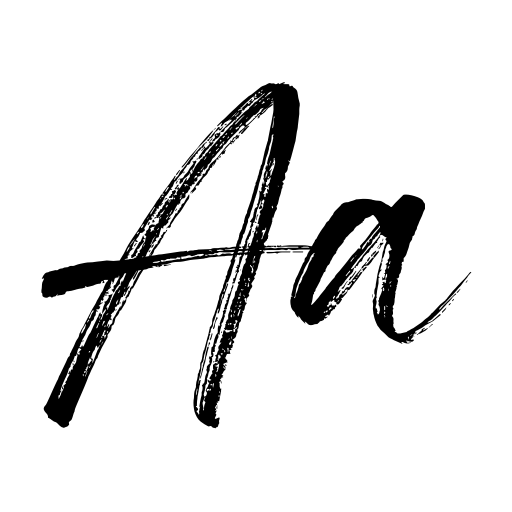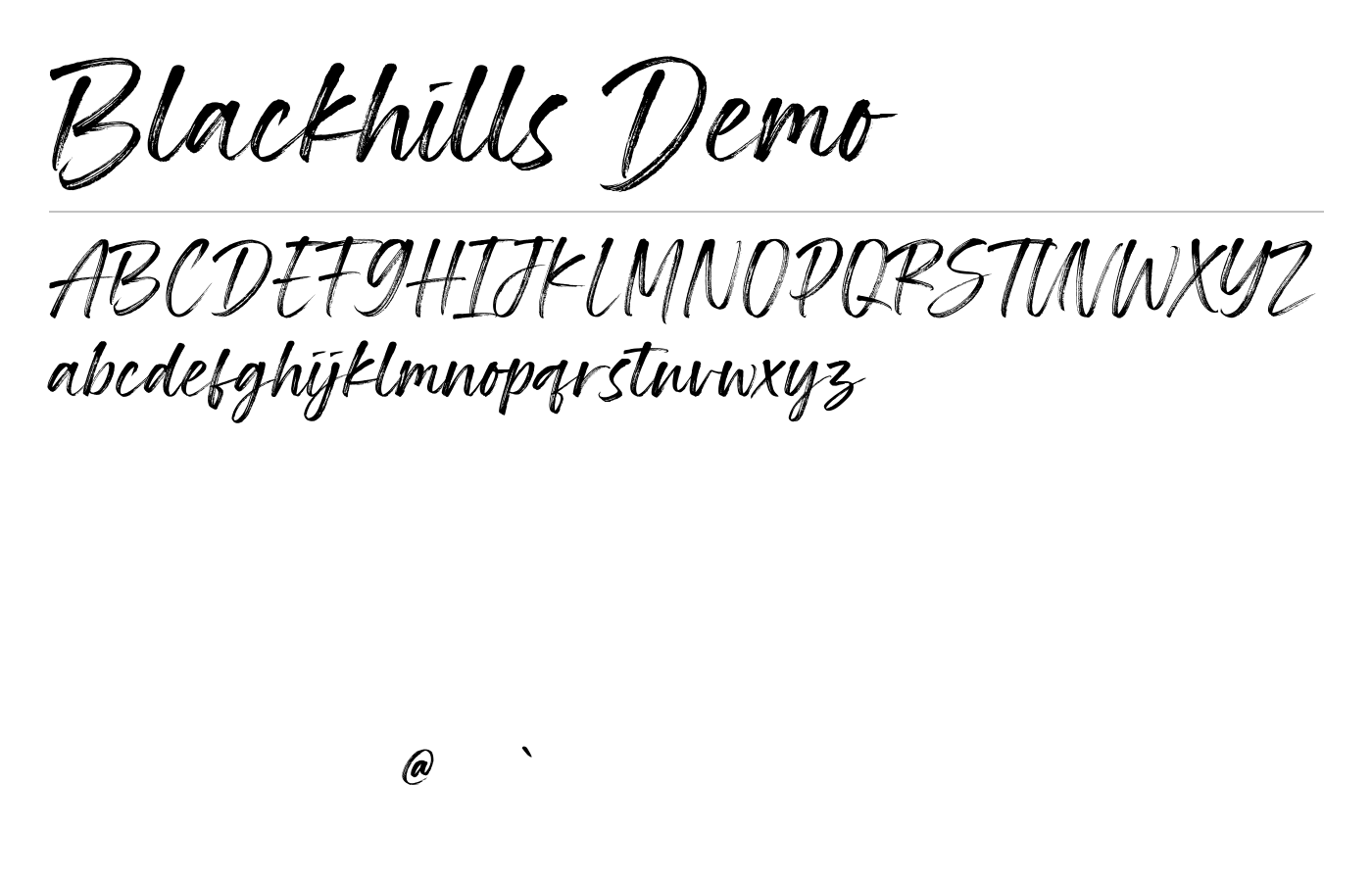
Blackhills Demo is a lively script font that mimics natural brush strokes with its textured, hand-painted style. Its energetic yet elegant feel makes it ideal for creative branding, invitations, and eye-catching headlines that want to convey personality and warmth. This font works well where a casual, artistic touch is needed to stand out with a modern and approachable vibe.
Blackhills Demo Font
About Blackhills Demo Font
| Font family | Blackhills Demo Font |
| Designer | Megi Satyo Widodo |